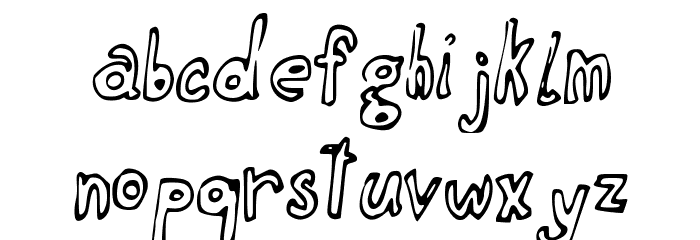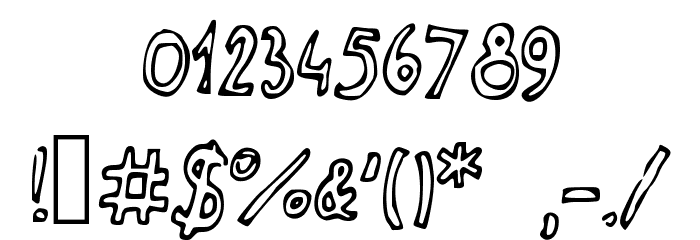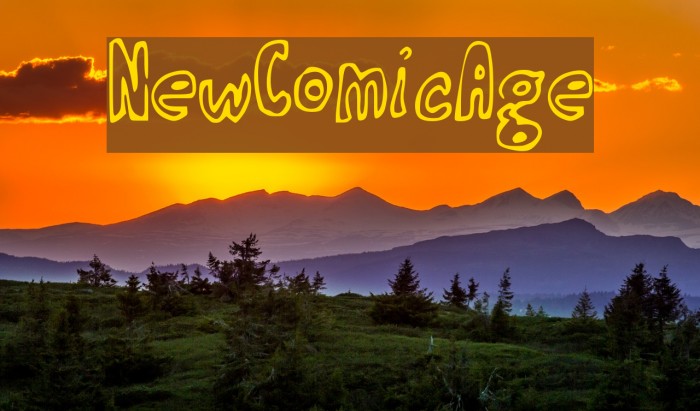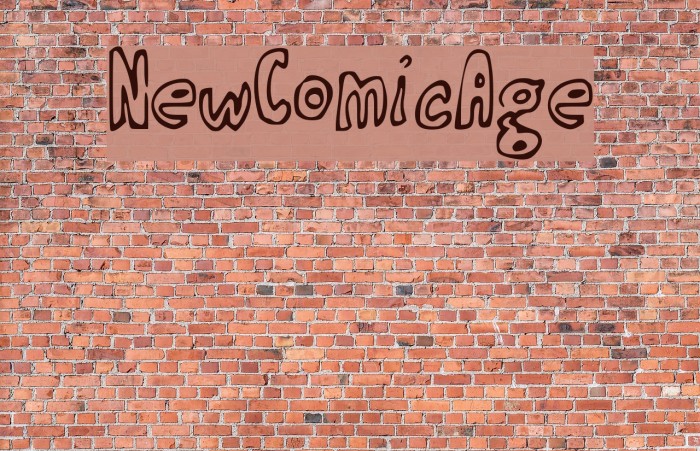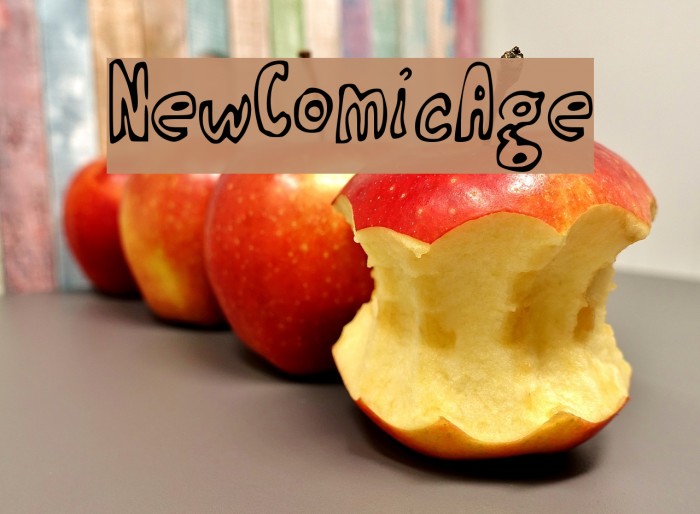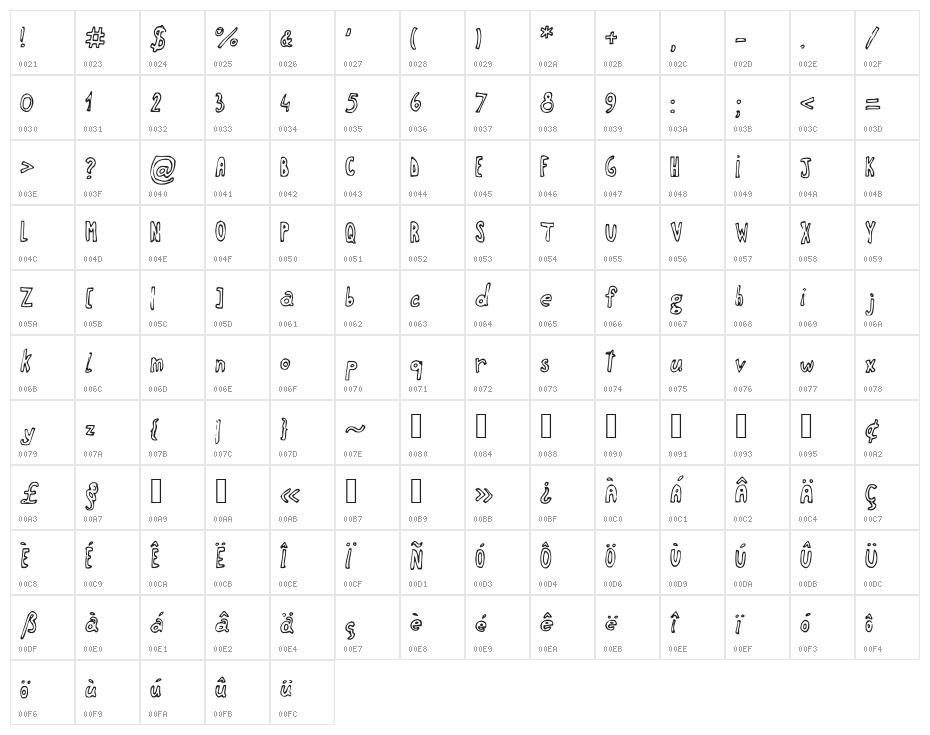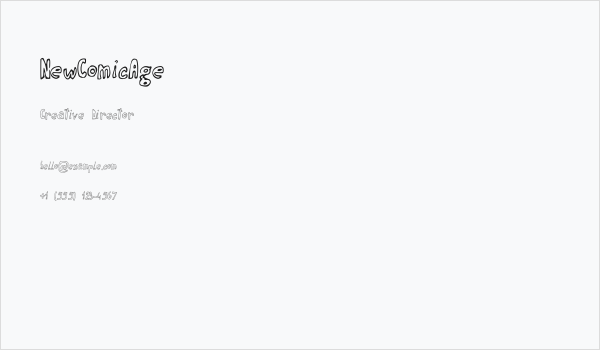
NewComicAge Font
This playful and whimsical font features a hand-drawn, comic-style appearance with bold outlines and irregular shapes. The uppercase and lowercase letters are characterized by their uneven strokes and slightly exaggerated forms, giving them a lively and energetic feel. The numbers and special characters maintain this quirky style, making the font ideal for projects that require a fun and informal touch. Its unique design is reminiscent of comic book lettering, making it suitable for creative and lighthearted applications.
A playful, hand-drawn comic-style font with bold outlines and irregular shapes.
- Proposed Projects: Ideal for comic books, children's books, playful branding, posters, and greeting cards.
- Overall Style: Playful, Whimsical